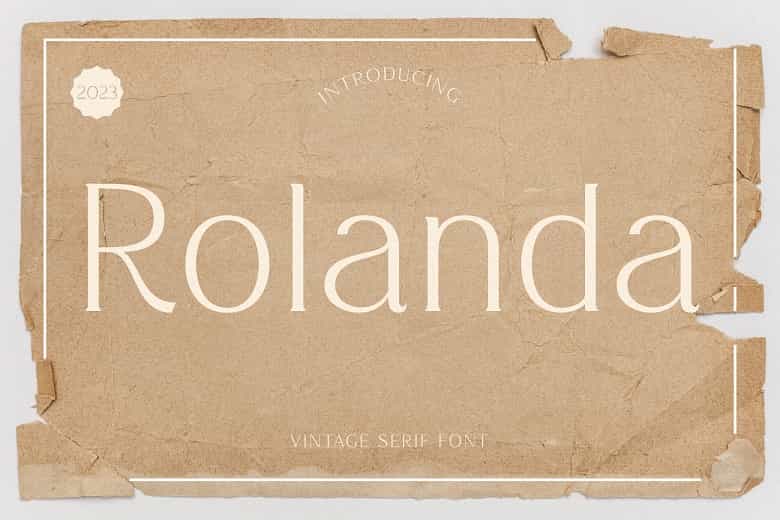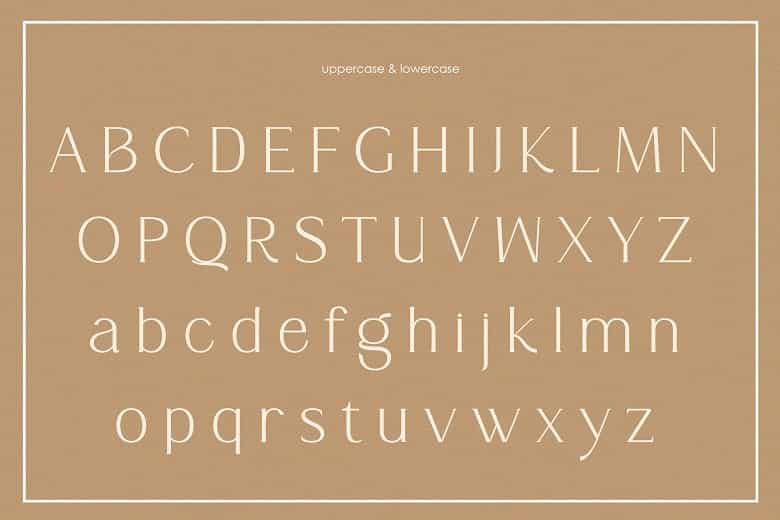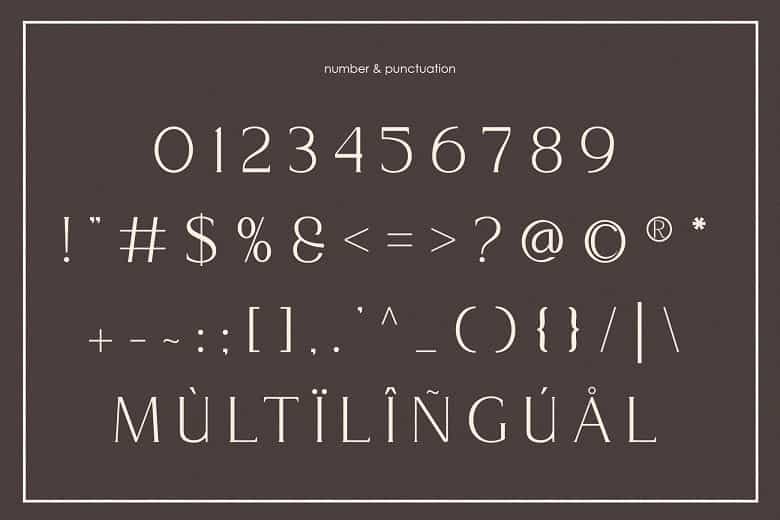
Rolanda is a beautiful and contemporary vintage serif font. With the elegant and simple look, Rolanda is perfect for your designs like websites, logos, brands, social media captions, wedding invitations, and many others!